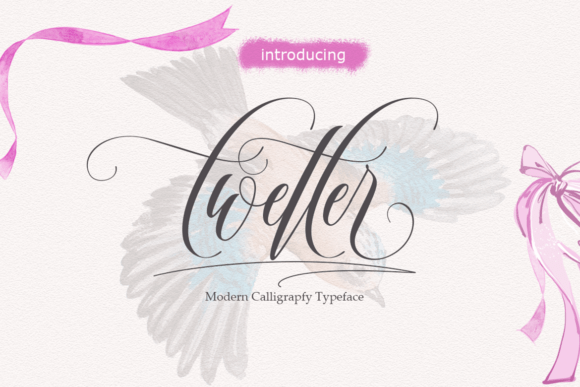
Twetter Font: A Dynamic Typeface for Modern Campaigns
It was 10 PM on a Tuesday, and I was staring at a blank canvas for a upcoming product teaser. The client wanted energy. They wanted movement. They wanted something that didn’t just sit there but felt like it was already in motion before the user even clicked. Standard bold sans serifs felt too static. Elegant serif fonts felt too slow. That is when I pulled Twetter from my library of Script Amp assets. This font is not just a typeface; it is a performance.
Created with characters that move up and down like a dancer, Twetter brings a unique rhythm to digital design. It captures a very specific style of calligraphy that feels modern, fluid, and intentionally imperfect. In a world where social media feeds are dominated by rigid grids and predictable layouts, this font offers a breath of fresh air. It is suitable for use in the work of modern design where personality matters more than perfection.
Bringing Motion to Static Social Media Graphics
The first place I tested Twetter was in a series of Instagram posts for a lifestyle brand launch. The goal was to create a sense of anticipation without using video. Because the glyphs in Twetter have varying vertical positions, they create an optical illusion of bouncing or dancing. When used for short headlines or callouts, this effect grabs attention immediately.
I used the font for the main hook on a carousel cover: "Ready to Move?" The uneven baseline made the text feel alive. It stood out against the clean, minimal photography we were using. For social media graphics, this visual hierarchy is crucial. Users scroll fast. A font that breaks the horizontal line forces the eye to pause. It works exceptionally well for quote graphics, webinar banners, and content series titles where you need to convey enthusiasm.
However, readability is key. On mobile screens, especially in small previews, you must be careful with sizing. Twetter is a display font, not a body text font. I kept the supporting copy in a clean sans serif font to ensure the message remained clear. The contrast between the dynamic Twetter header and the stable body text created a balanced composition that was easy to read but hard to ignore.
Elevating YouTube Thumbnails and Digital Ads
Moving beyond static posts, I integrated Twetter into a set of YouTube thumbnails. In the crowded landscape of video content, your thumbnail is your billboard. I needed a font that could compete with bright colors and expressive faces. Twetter’s unique calligraphic style added a layer of sophistication that standard impact fonts lack.
For a digital ad layout promoting an online course, I used Twetter for the primary value proposition. The font’s playful nature softened the sales pitch, making it feel more like an invitation than a demand. This is vital for brand identity. If your brand voice is approachable and energetic, Twetter reinforces that message visually. It helps with brand recognition because it is distinct. Once a viewer sees that dancing baseline, they associate it with the campaign’s energy.
When designing for dark backgrounds, I found that lighter weights of the font performed better, preventing the characters from looking too heavy. On light backgrounds, the darker strokes provided excellent contrast. Always check your designs on both modes. The fluidity of the letters means they can sometimes blend into busy backgrounds if the contrast is not high enough. Keep the background simple to let the typography do the work.
Strategic Font Pairing and Visual Harmony
No font exists in a vacuum. To make Twetter work in a professional campaign, you need strong partners. I paired it with a geometric sans serif for a modern tech vibe. The straight lines of the sans serif grounded the whimsical movement of Twetter. This combination is ideal for web design headers and landing page hero sections.
For a more editorial look, I experimented with a high-contrast serif font. This created a interesting tension between the traditional elegance of the serif and the modern dance of Twetter. This pairing worked well for Pinterest pins and blog post headers. It signaled that the content was thoughtful but not boring. Avoid pairing it with other script fonts or handwritten fonts, as this can create visual clutter and reduce legibility. Let Twetter be the star of the show.
In packaging design concepts, I used Twetter for logo-style text on limited edition items. The unique style makes it memorable. However, for long-term brand logos, ensure the font licensing allows for such use and that the design remains recognizable at very small sizes, such as on social media avatars.
Knowing When to Hold Back
While Twetter is versatile, it is not a universal solution. It is not suitable for long copy, dense information, or formal corporate communication. Do not use it for terms and conditions, detailed product specifications, or legal disclaimers. Its strength lies in its decorative titles and display text. Using it for body text would frustrate readers and hurt your conversion rates.
Integrating Twetter into your design assets can transform a standard promotional graphic into a engaging visual experience. It is a premium font that delivers on its promise of movement and style. By understanding its strengths and limitations, you can use it to enhance message clarity and audience engagement. Whether you are building Instagram posts, designing YouTube thumbnails, or creating email banners, Twetter offers a creative edge that helps your brand stand out in a noisy digital world.